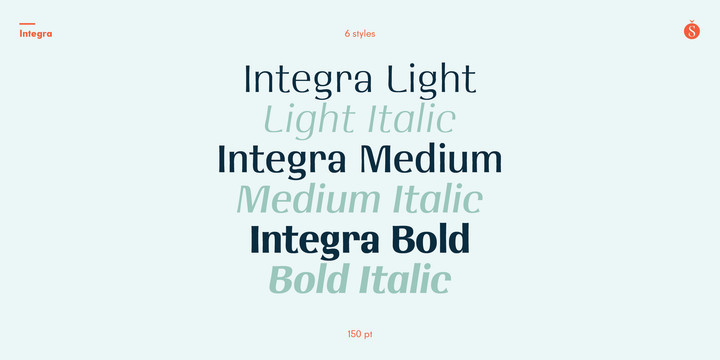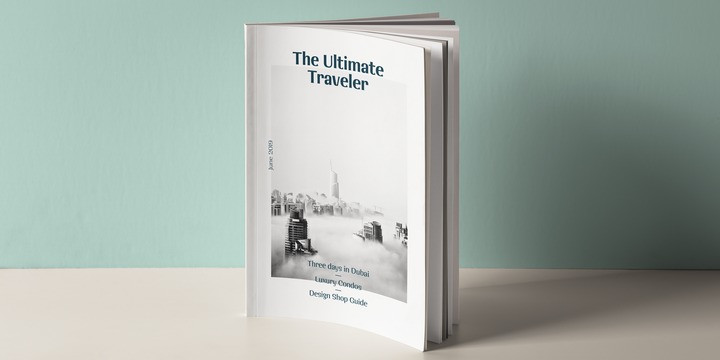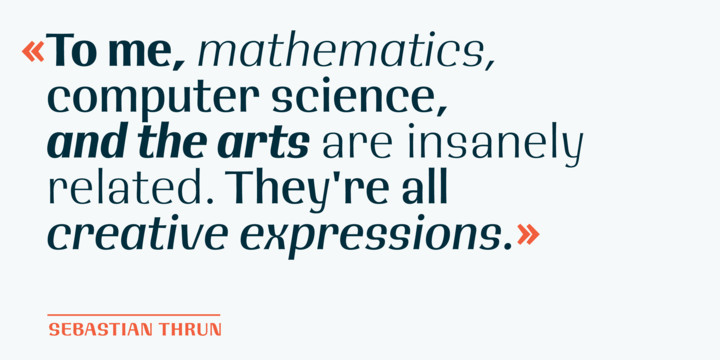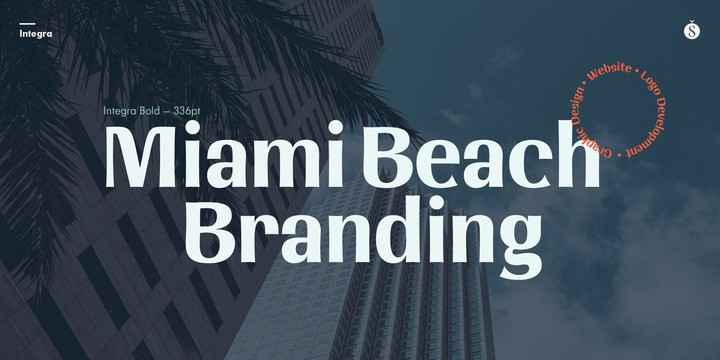
Integra Font Family
Semi-serif? Semi-sans? Emerging from the hazy border that divides Sans from Serif, Integra aims to integrate both styles in a cool, elegant, contemporary fashion.
With its sleek anatomy, flared terminals and almost non-existent straight lines, Integra was inspired by the stressed, modulated, unserifed letterforms incised in the early 15th-century ledger tombs at Santa Croce church in Florence, and the neoclassical grotto inscriptions at Stourhead in England that dates from the mid 18th-century. Integra, however, gives a contemporary, even futuristic twist to these references by featuring original, audacious shapes on key letters like L, E and X; as well as with the modern, generous proportions of its lowercase; infusing it all with a flowing, luminous, Latin American feel.
Integra comes in several weights and italic styles, for text composition and display usage. Its rounded counterforms and arch-like shapes lend texts a spacious, neat, architectural quality, perfect for sophisticated content.